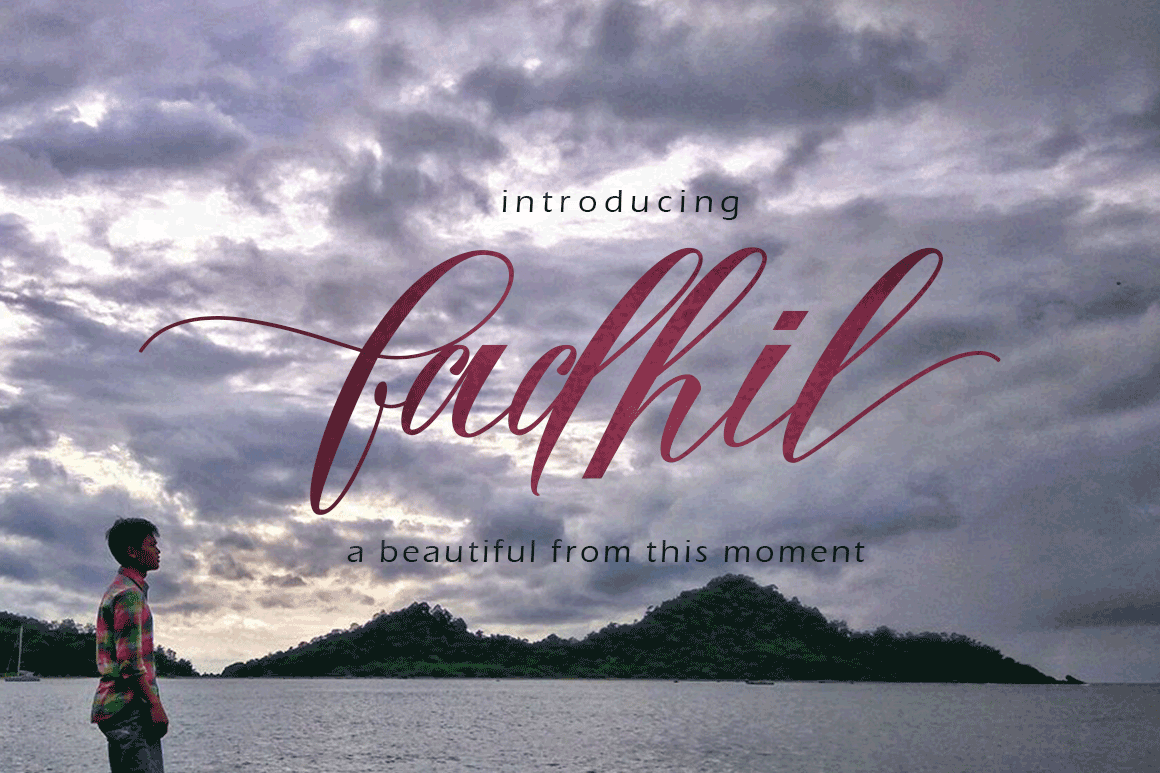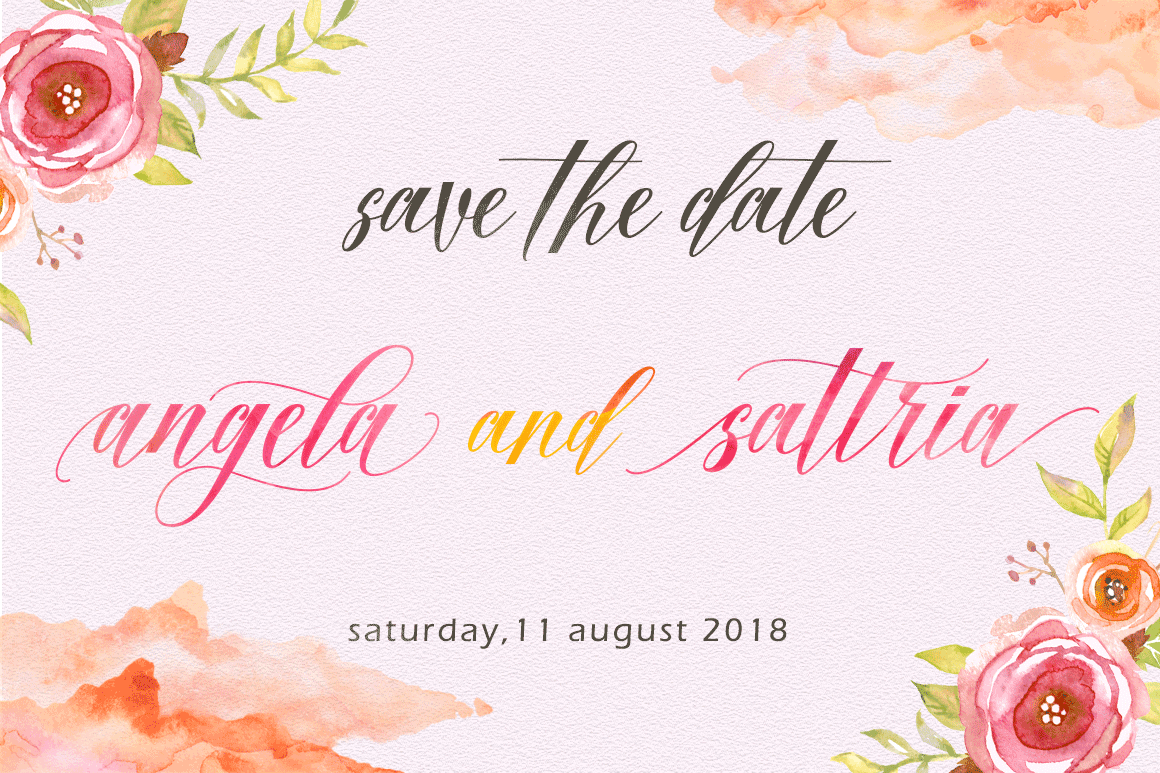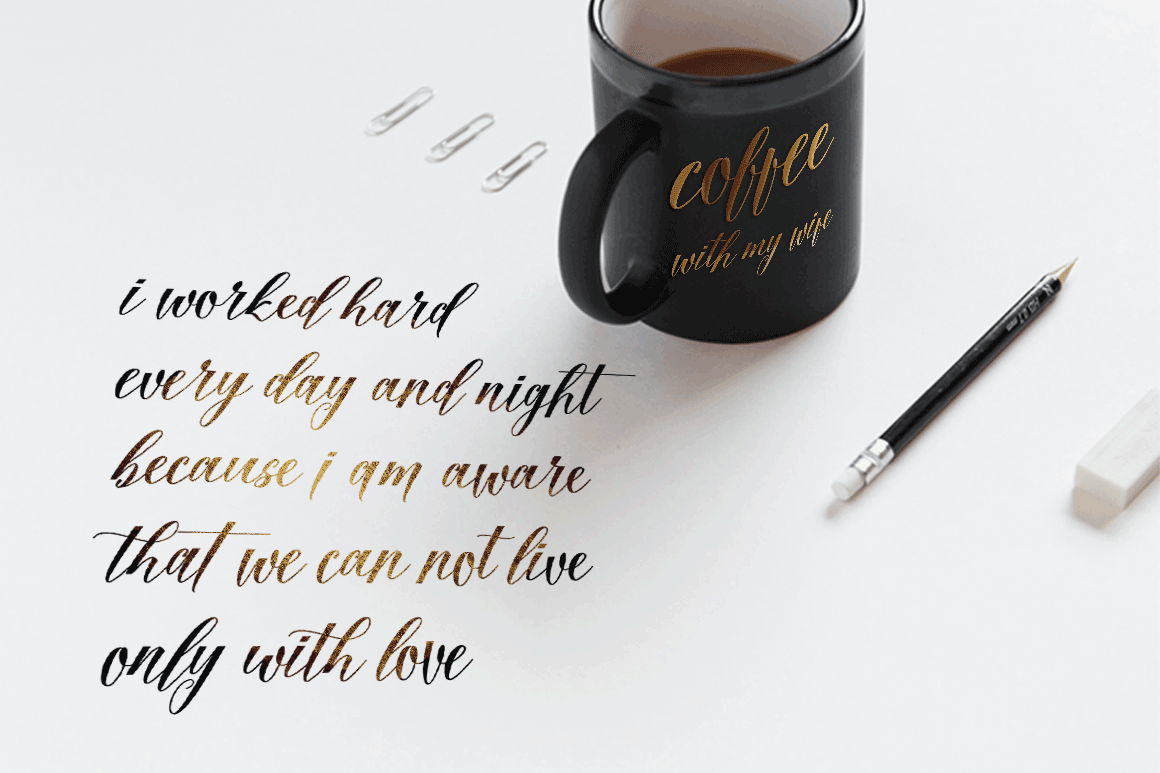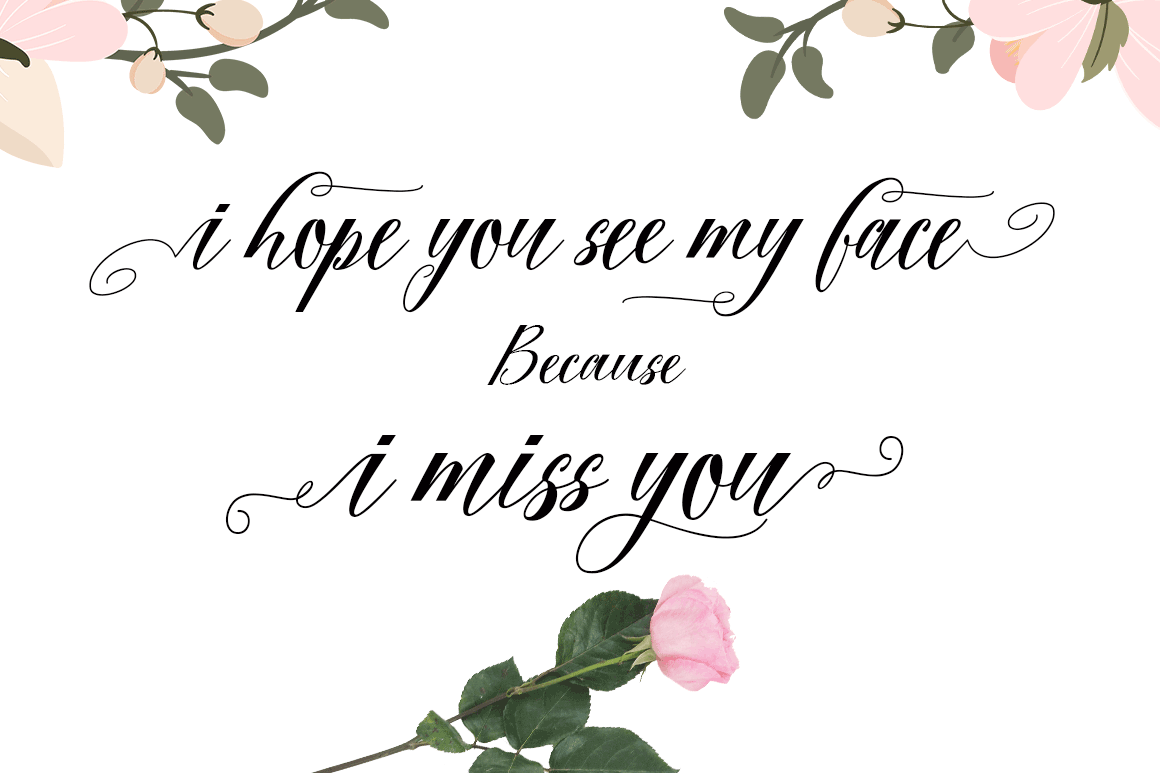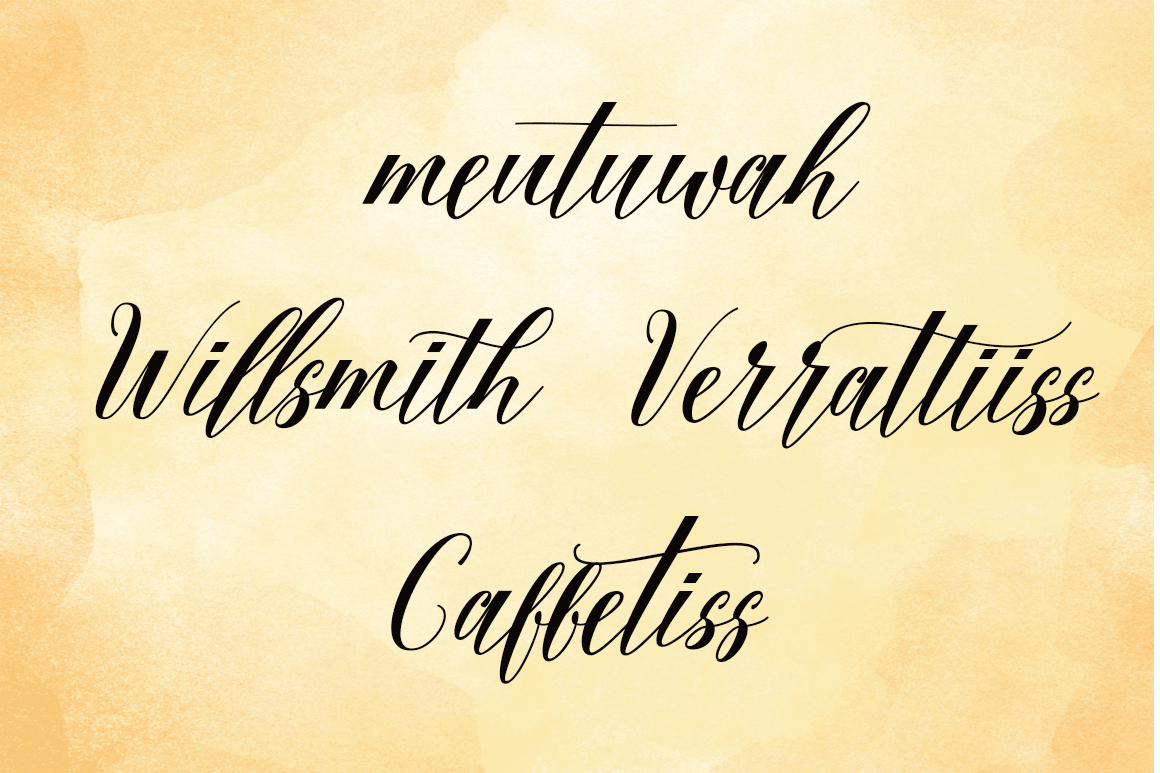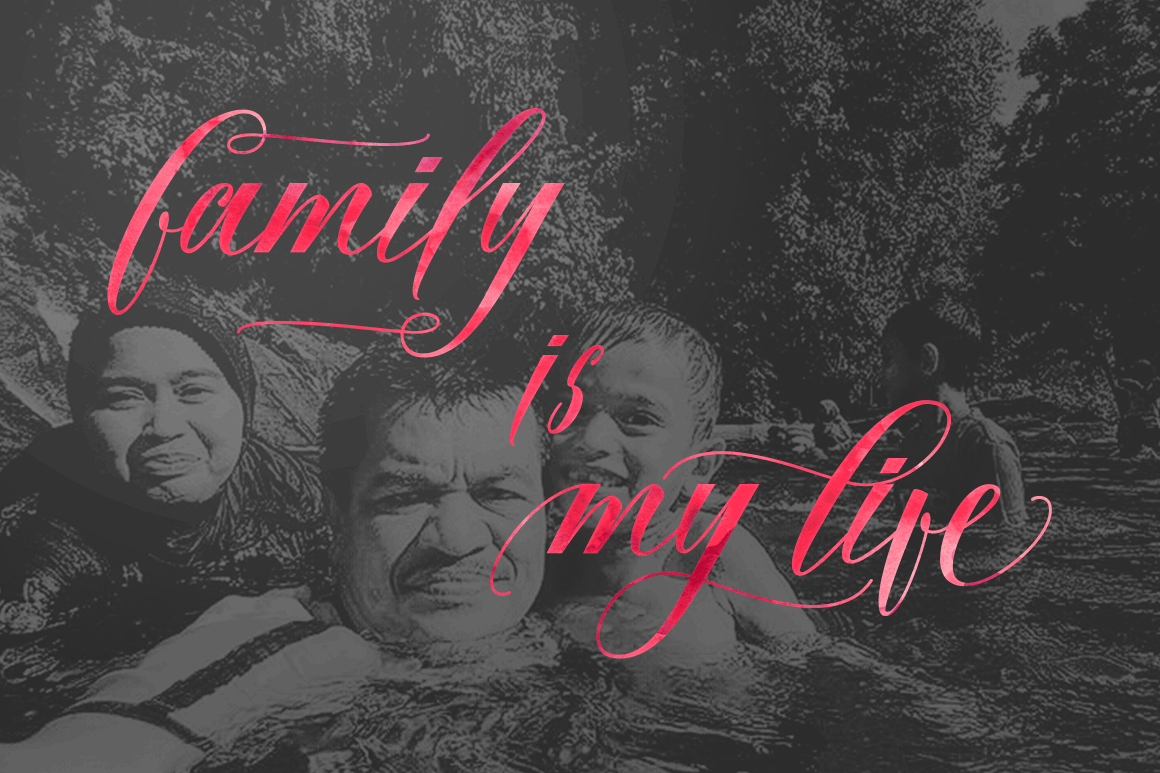
Fadhil Font
About Fadhil Font
Fadhil is a handmade font created by Meutuwah. It’s a fluid, happy font that is suitable for many different types of projects.